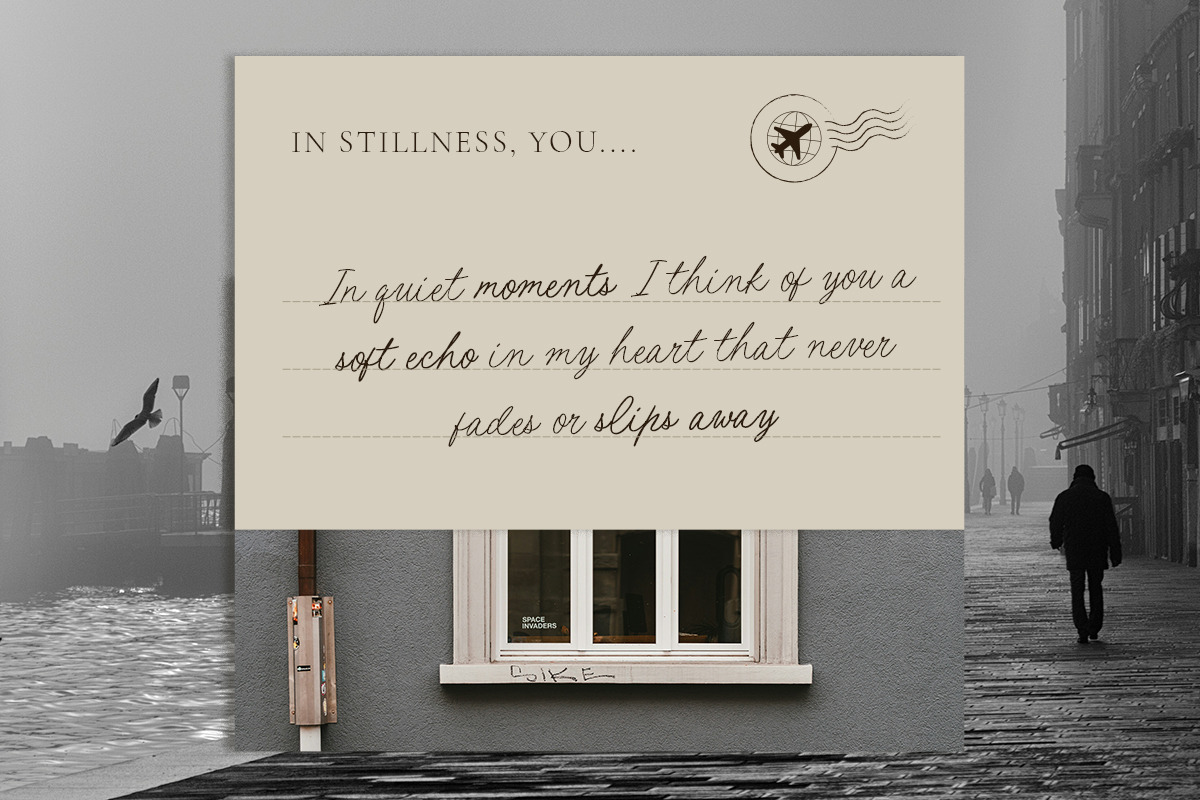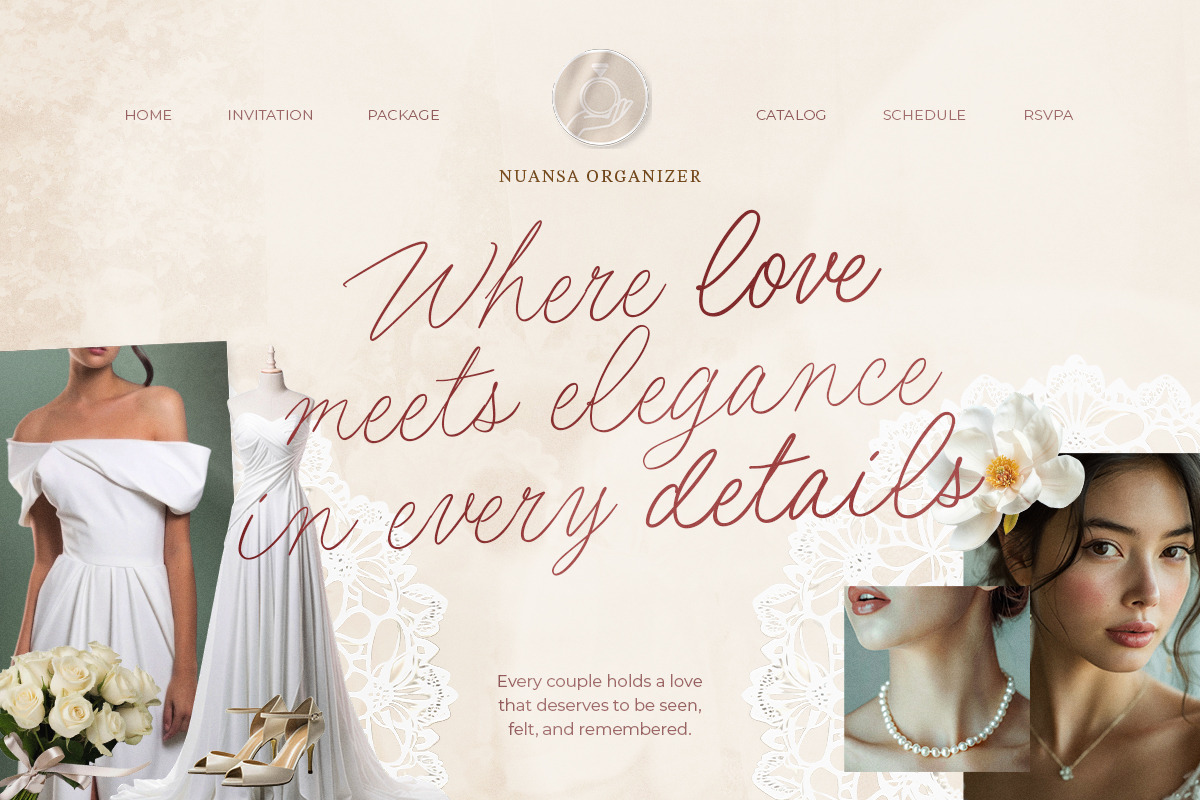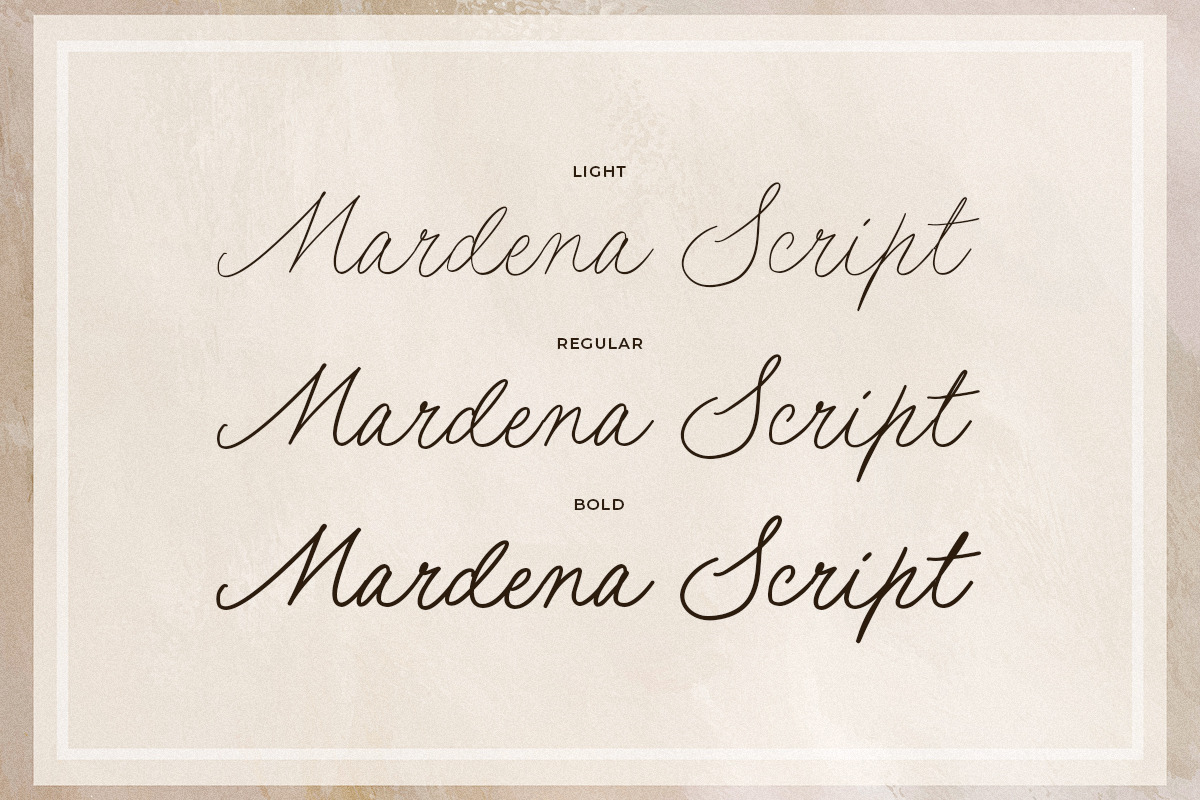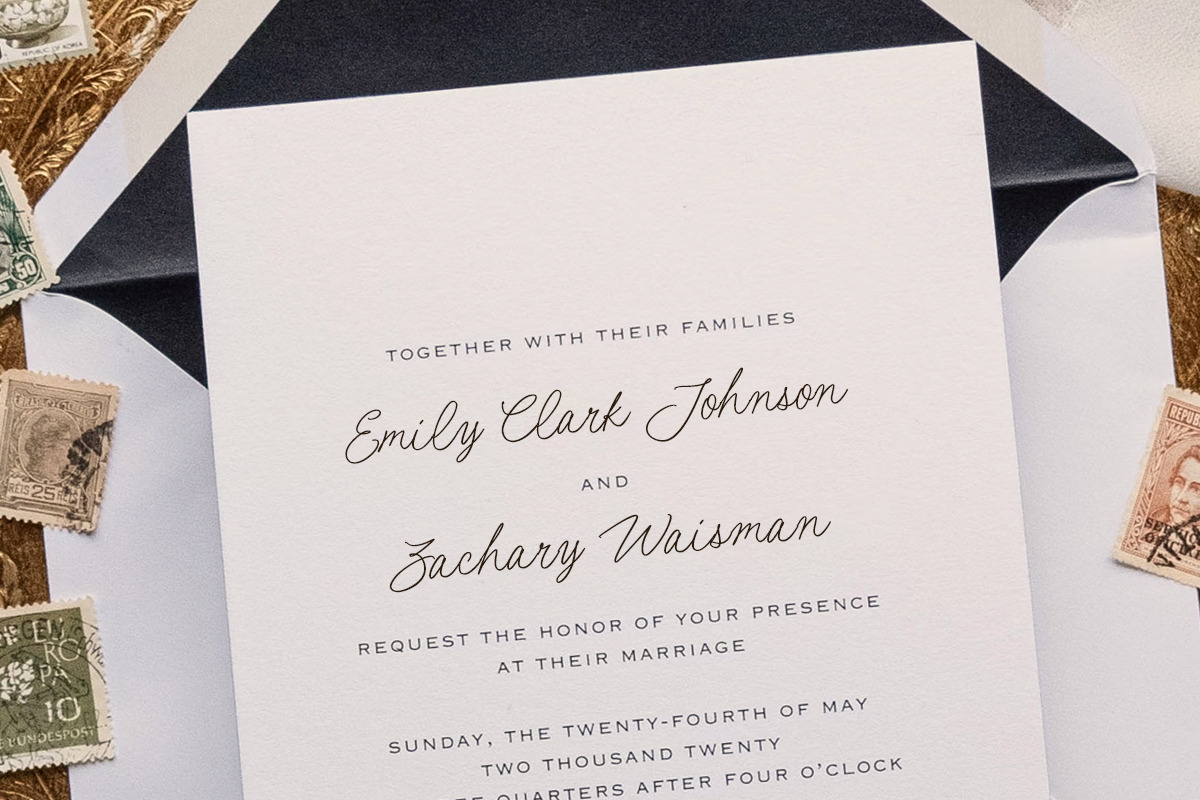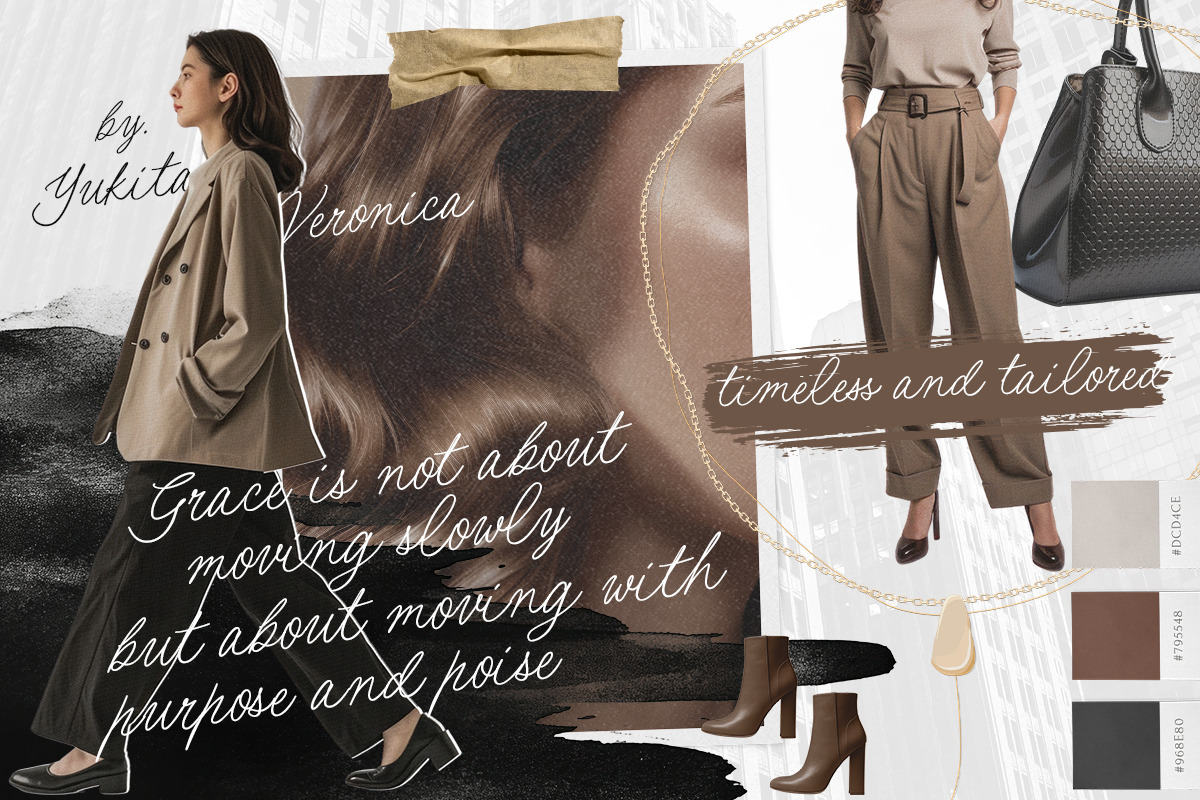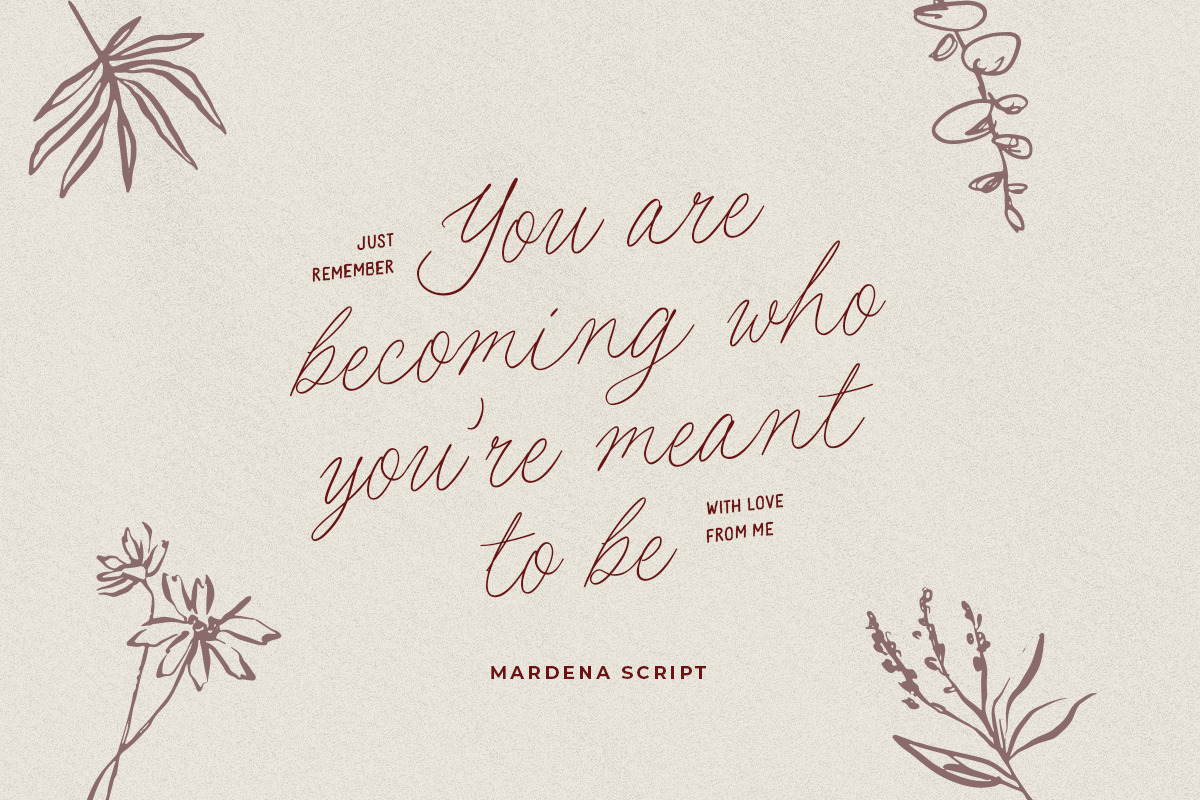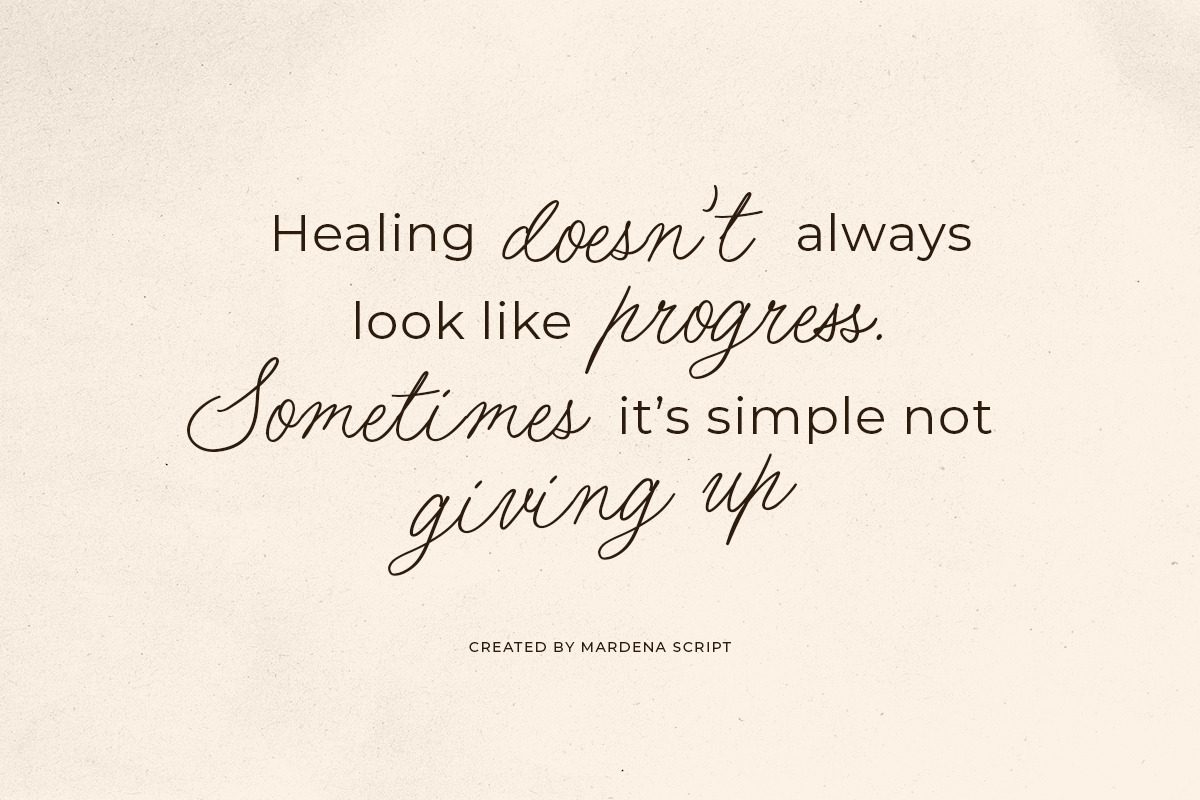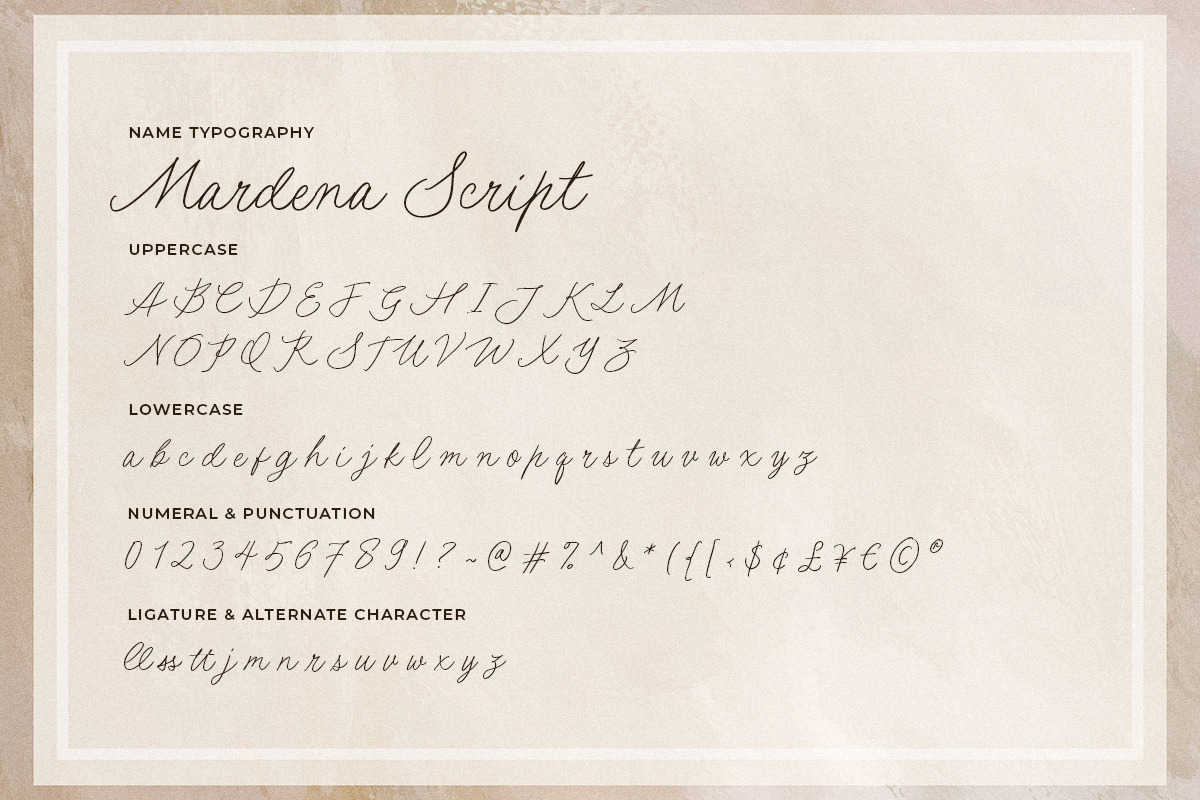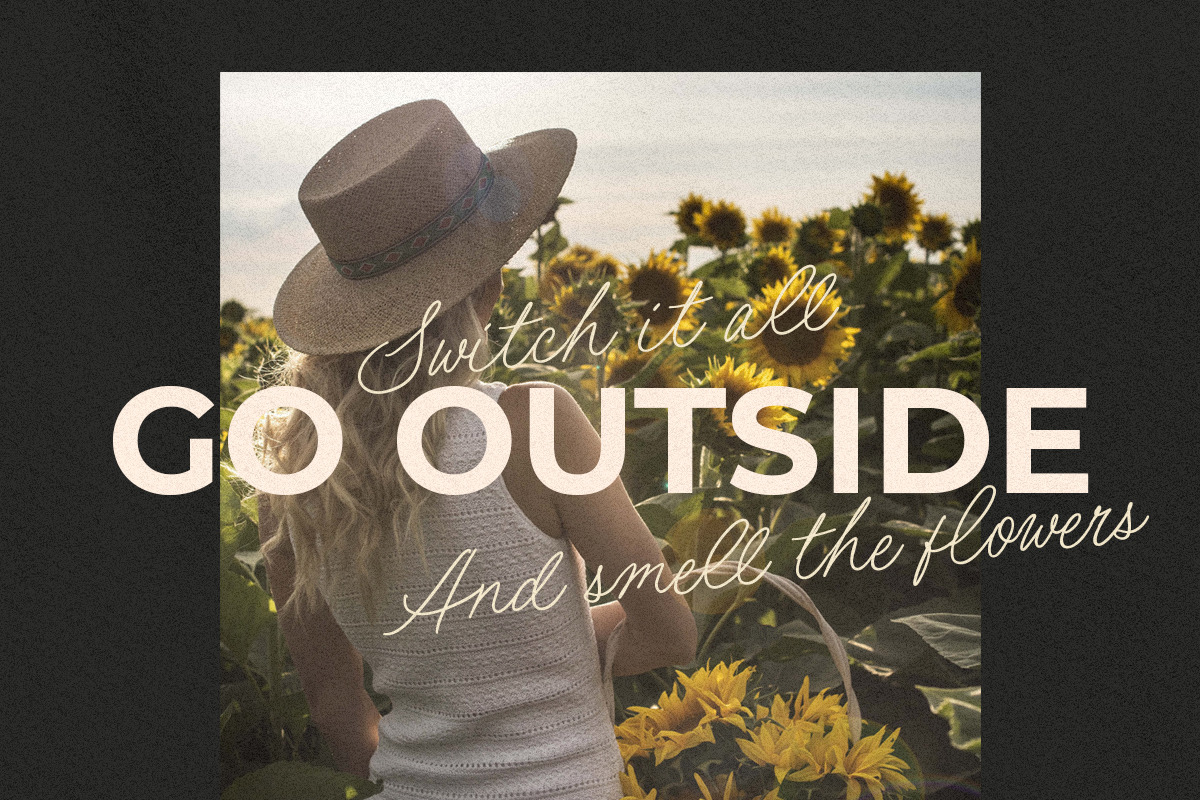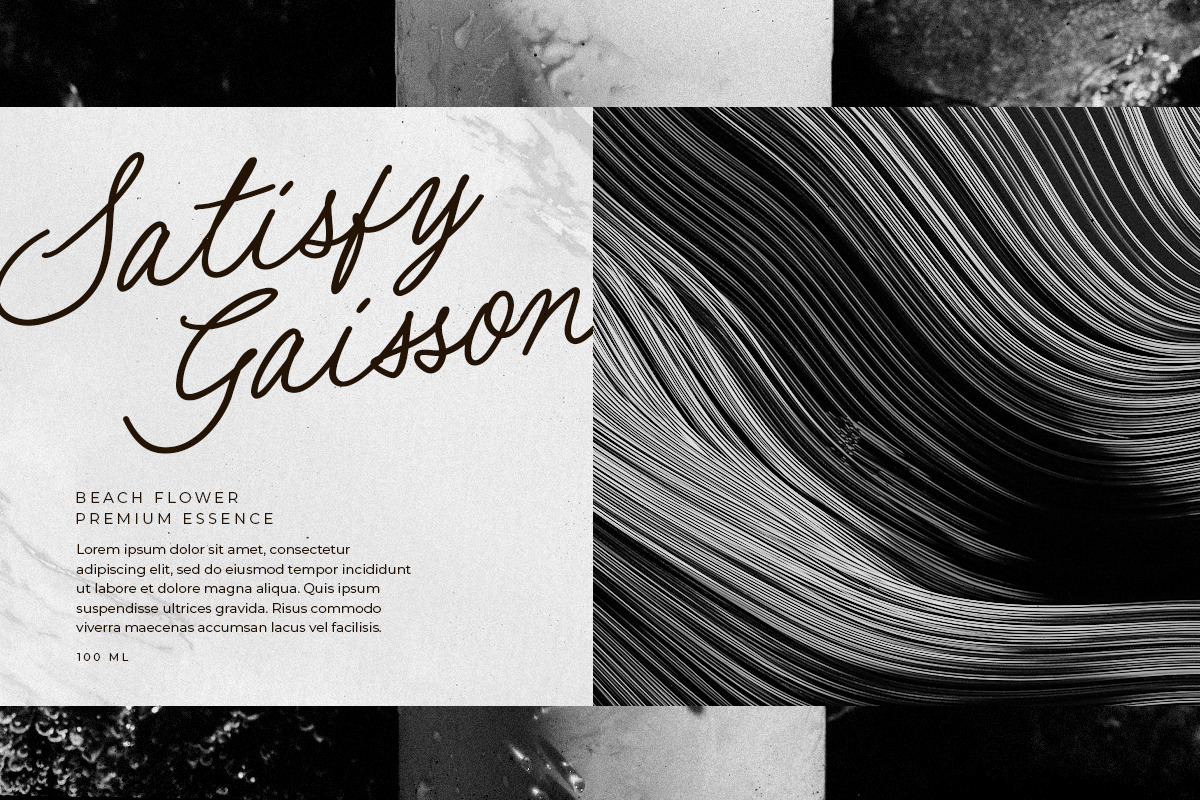
Mardena - Casual Handwritten Script
Introducing, Mardena, casual and elegant handwritten script
Mardena is a handwritten signature script with three style including light, regular, and bold. With minimalist and clean looks, you can use this font for any project such as logotype, quotes, wedding invitations, or complementary for your branding font. Mardena also support multi language!